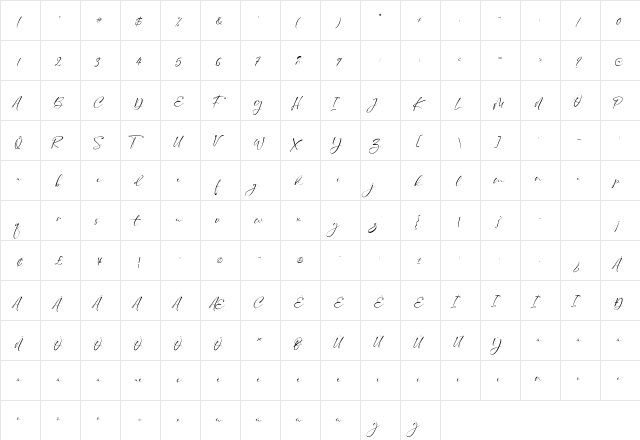
Taman Signature Regular
| Designer | Gilar Studio |
Design Context for Taman Signature Typeface
Taman Signature takes a measured approach to typography — its balanced proportions and neutral character make it a reliable workhorse for both digital and print work.